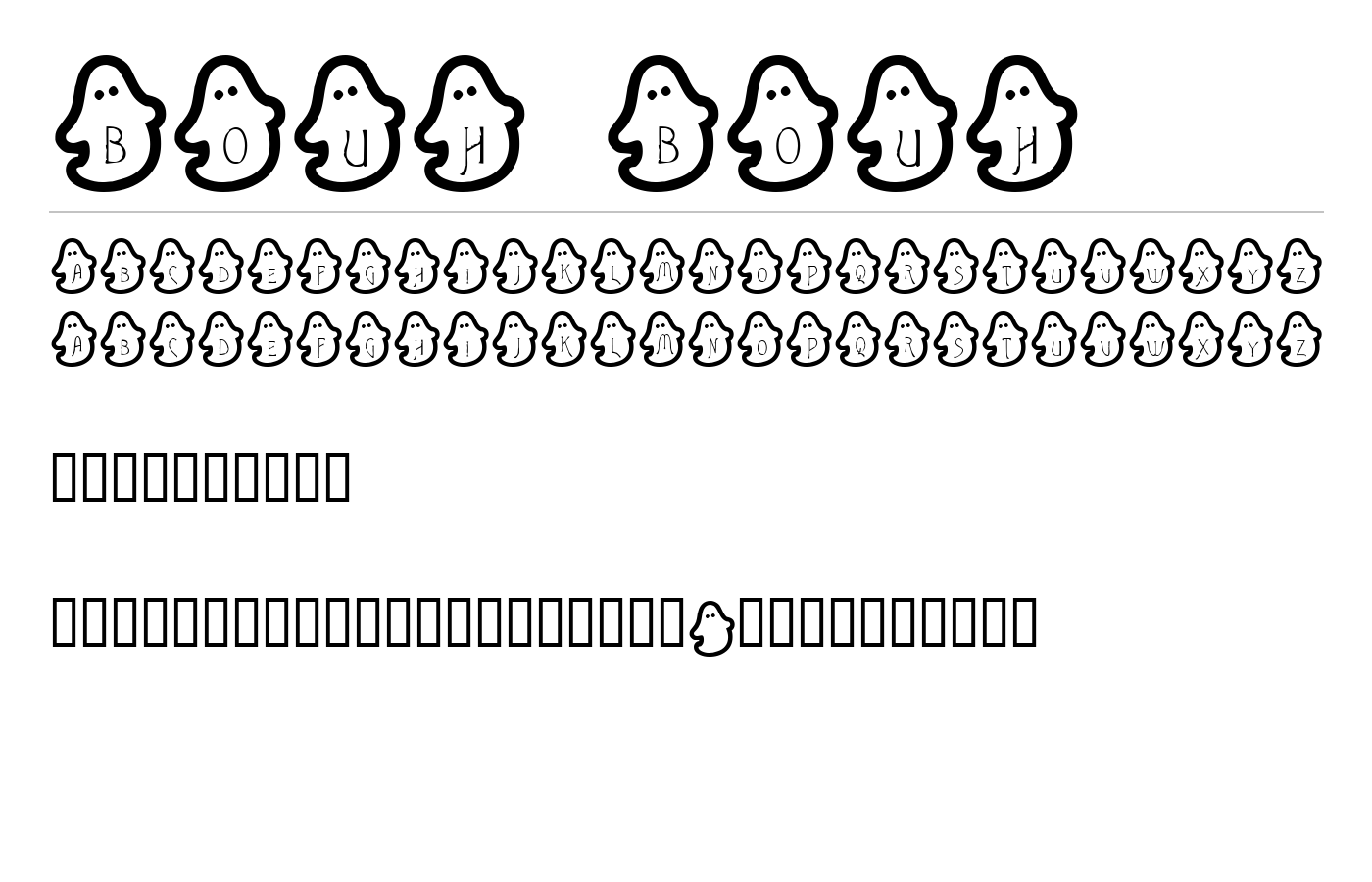
Bouh bouh Font is a playful and whimsical display font featuring ghost-shaped characters with simple, hand-drawn letterforms inside each shape. Its quirky, casual style makes it perfect for fun Halloween-themed designs, children’s projects, or any context seeking a lighthearted, spooky vibe. This font shines best in headlines, posters, and creative branding where a unique, approachable personality is desired.
Bouh bouh Font
About Bouh bouh Font